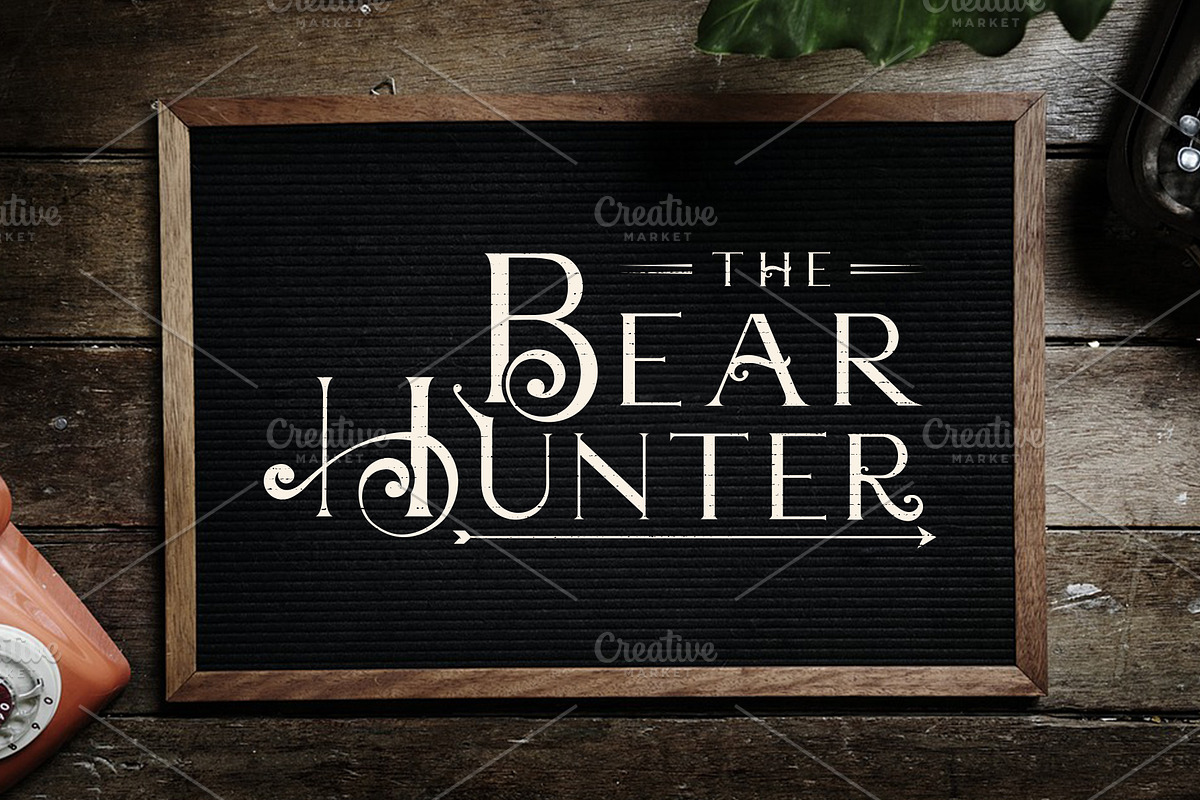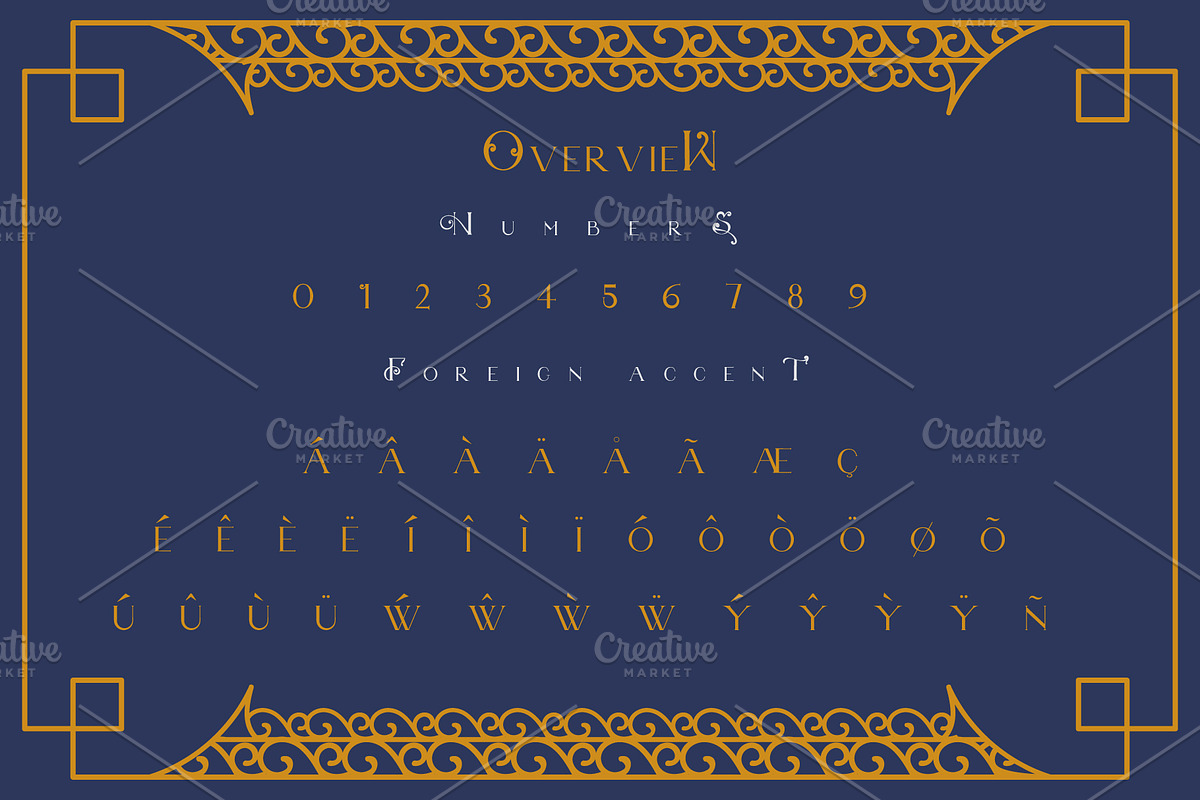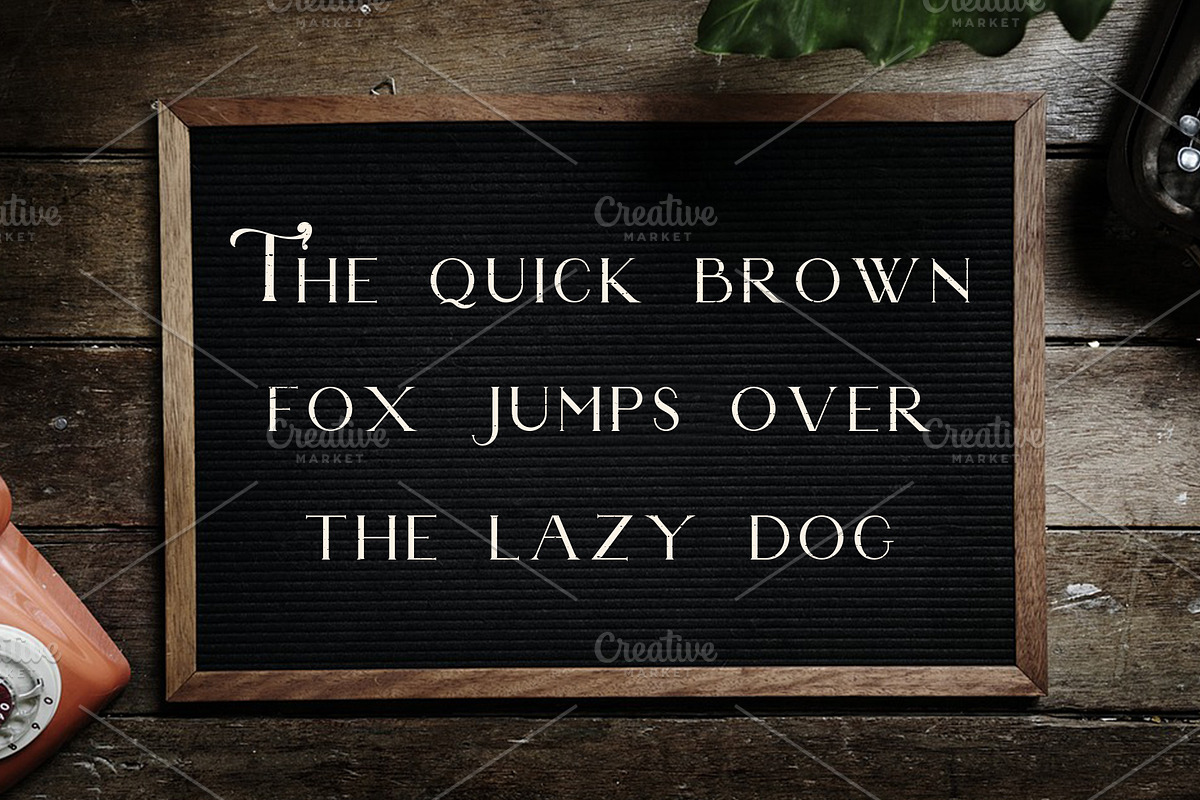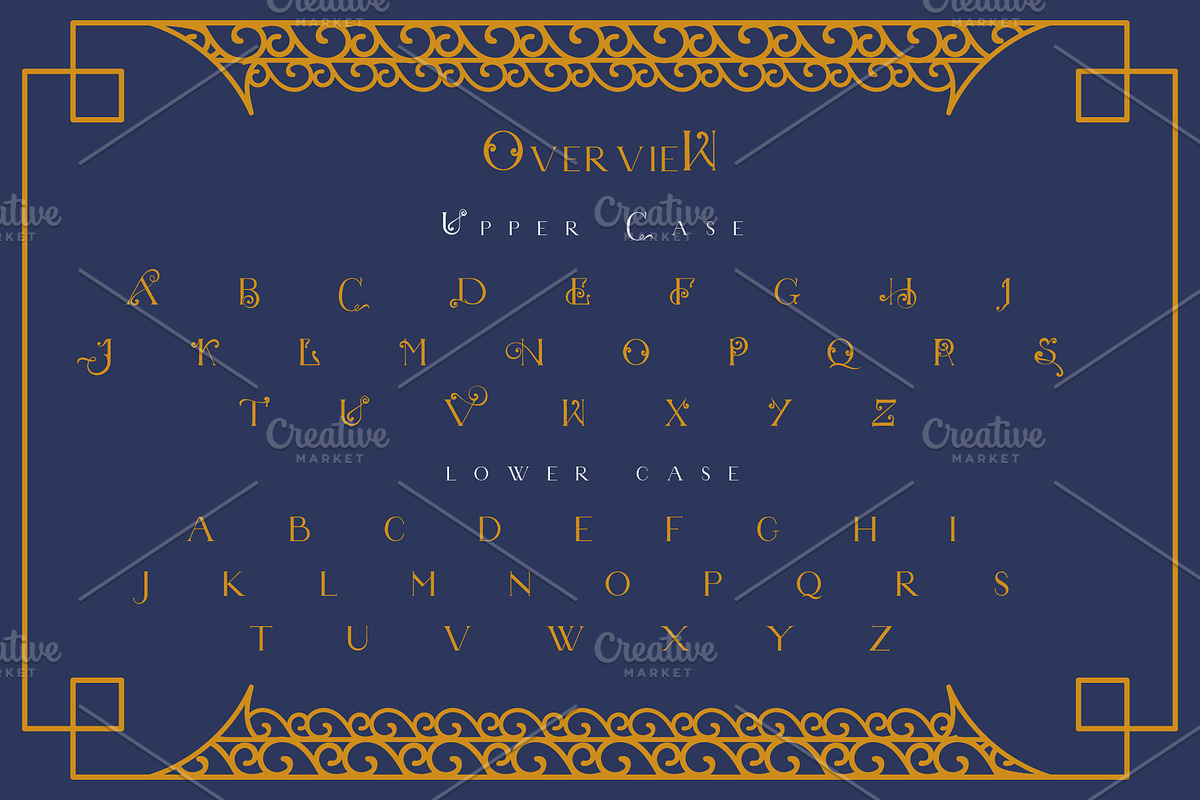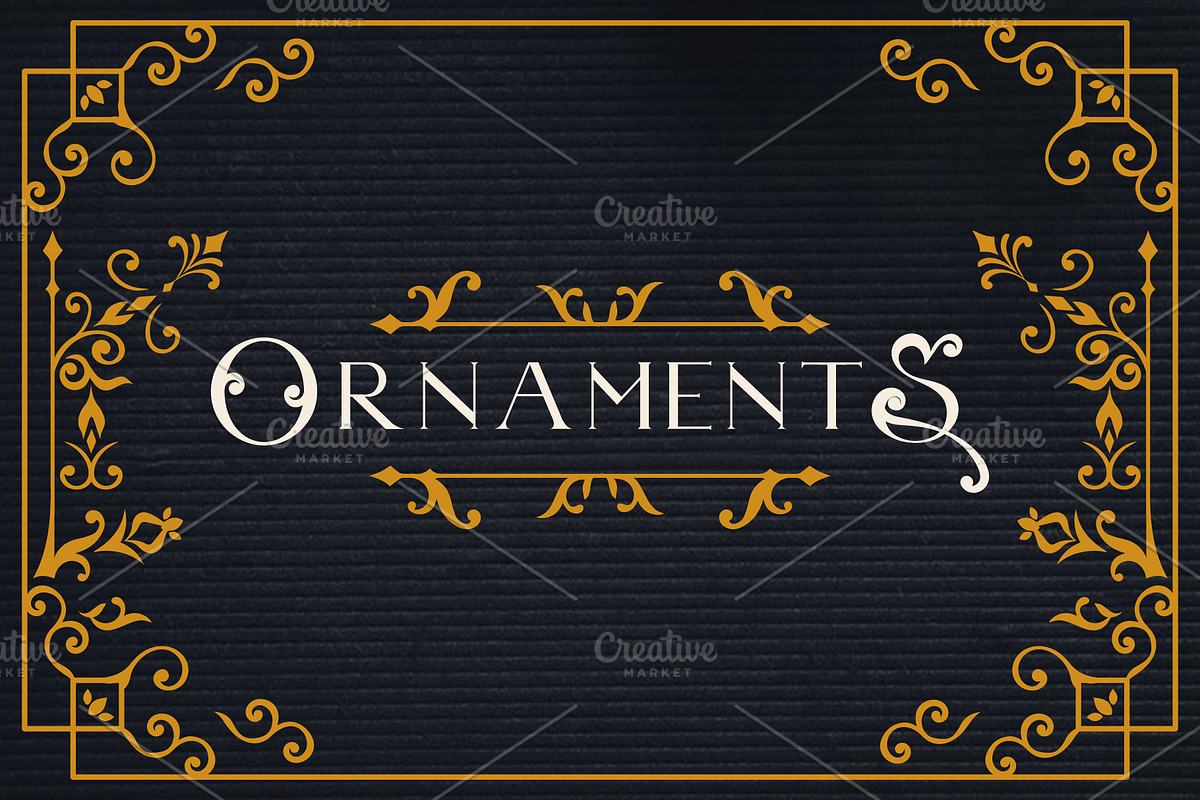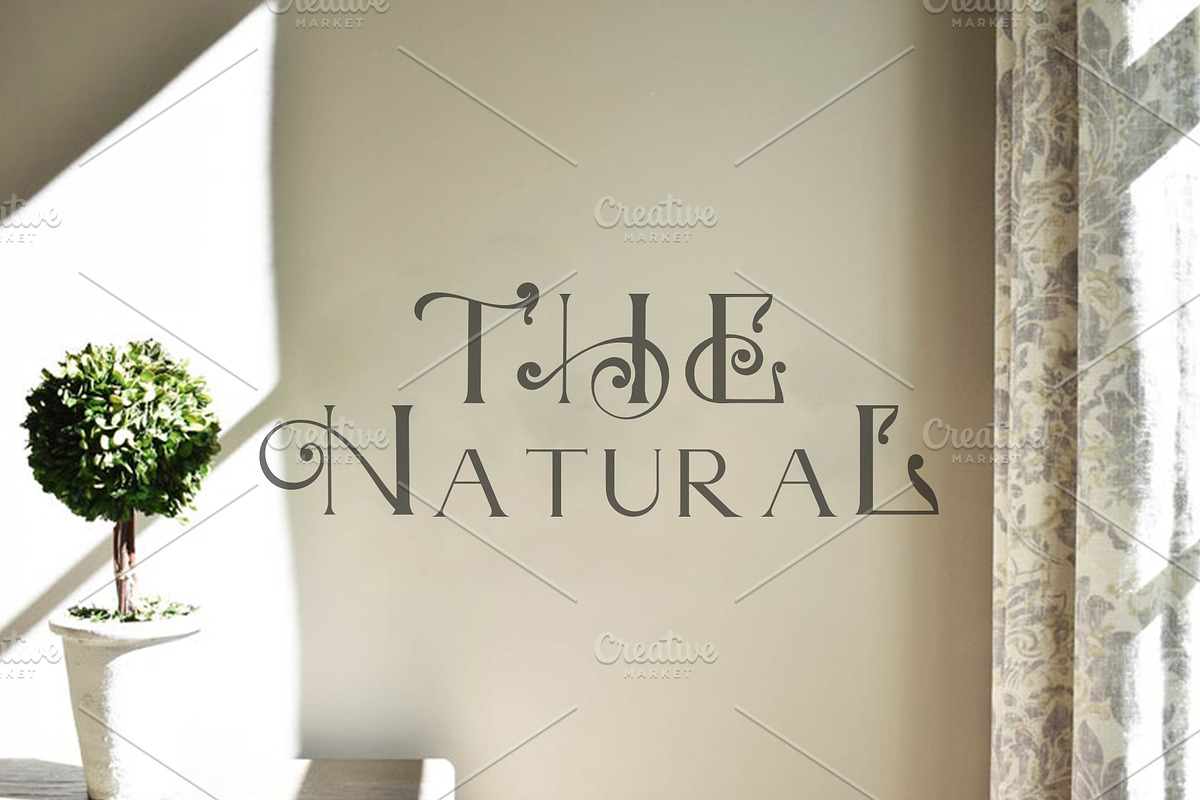
Black Hawk Font + Extra Ornaments ^^
Black Hawk Font is inspired display font comes with opentype featuresand alot of alternative Glyph that can be layered to create different Styles.
Numerals & Punctuations.
Accents (Multilingual characters).
Because of its high quality details and visual appealing Black Hawk font is suitable for most design needs, the font is best used inlarge font sizes (such as in advertisements, labels, brochures, posters.. etc) making it a perfect choice for designers.
- Black Hawk is an elegant modern font, that comes with unique characteristics and high quality details.
- Layered font system.
- Character Set A-Z.
- Numerals & Punctuations.
- Accents (Multilingual characters).